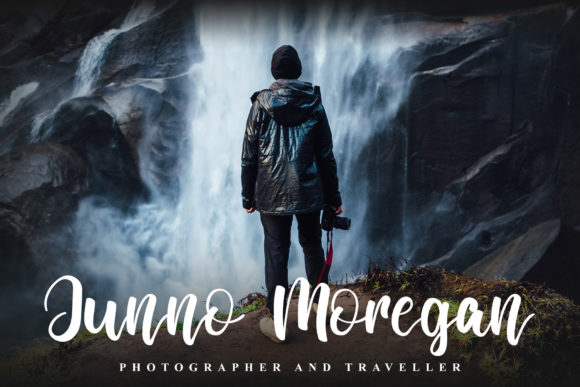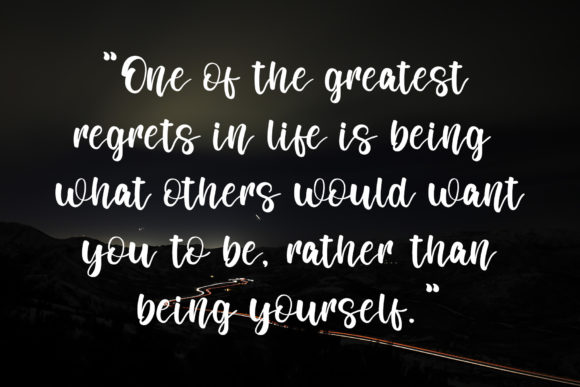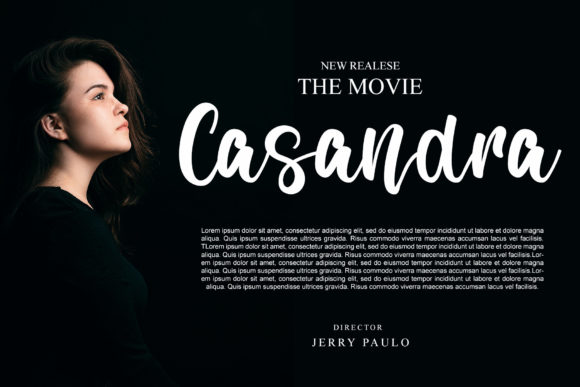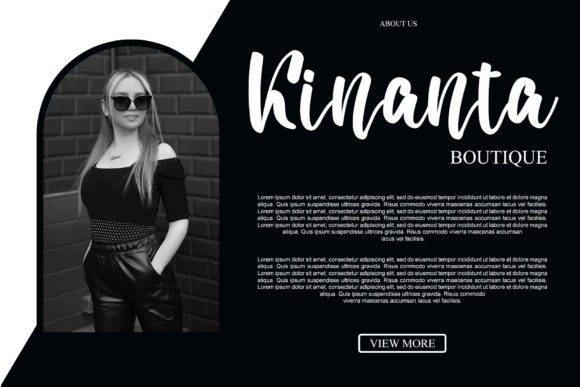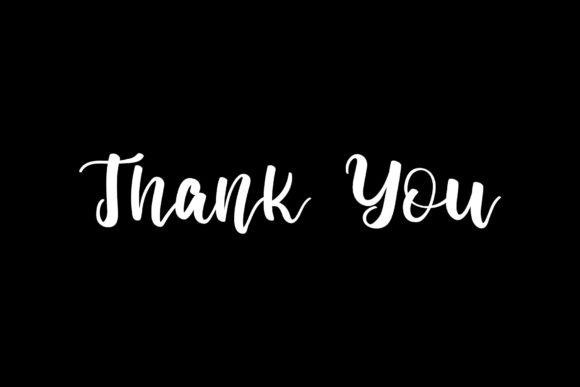
Introduction to Black Smile Font
Black Smile is a beautiful and whimsical script font.
It is defined by smooth curves and is perfect for fashion branding or editorial designs Add it confidently to your projects, and you will love the results.
Key Features of Black Smile Font
Why Choose Black Smile Font?
Black Smile Font offers exceptional quality and versatility, making it a valuable addition to your design toolkit. Whether you’re creating for personal projects or commercial use, Black Smile Font delivers professional results.